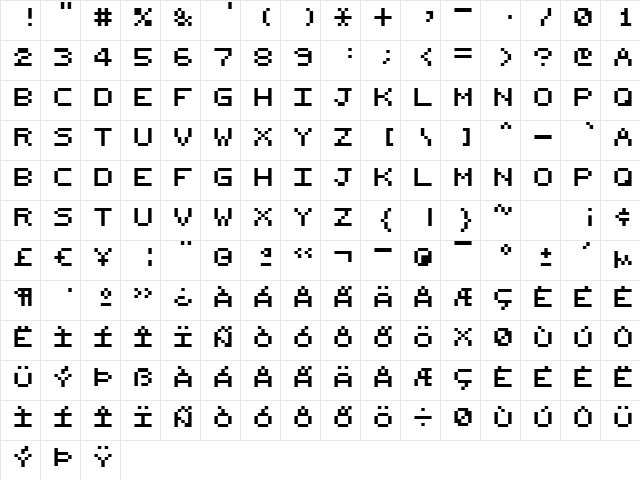
zTerm Regular Font Preview
zTerm Regular
Design Context for zTerm Typeface
zTerm is a composed and adaptable typeface that performs quietly and consistently across a wide range of design contexts.